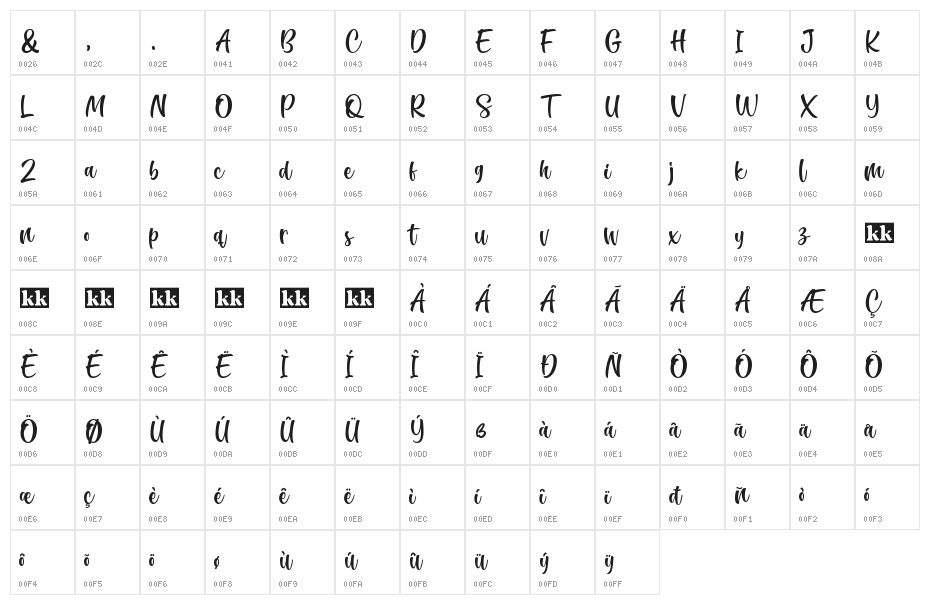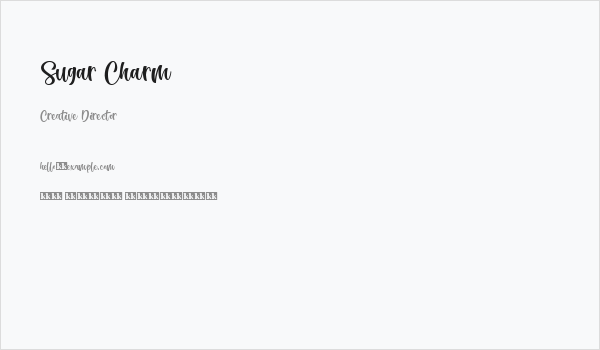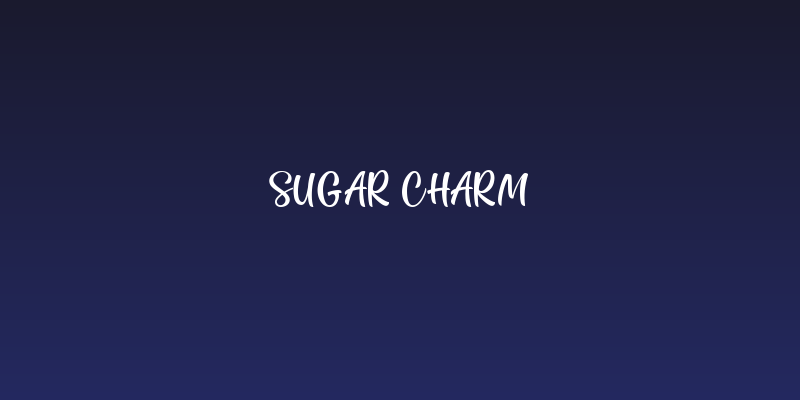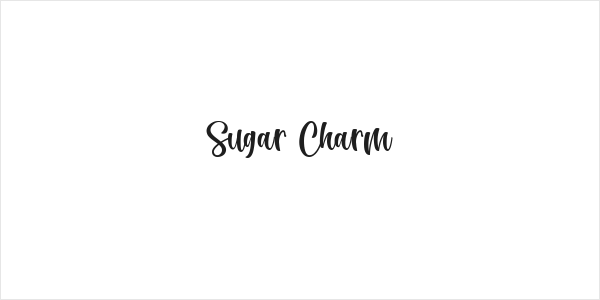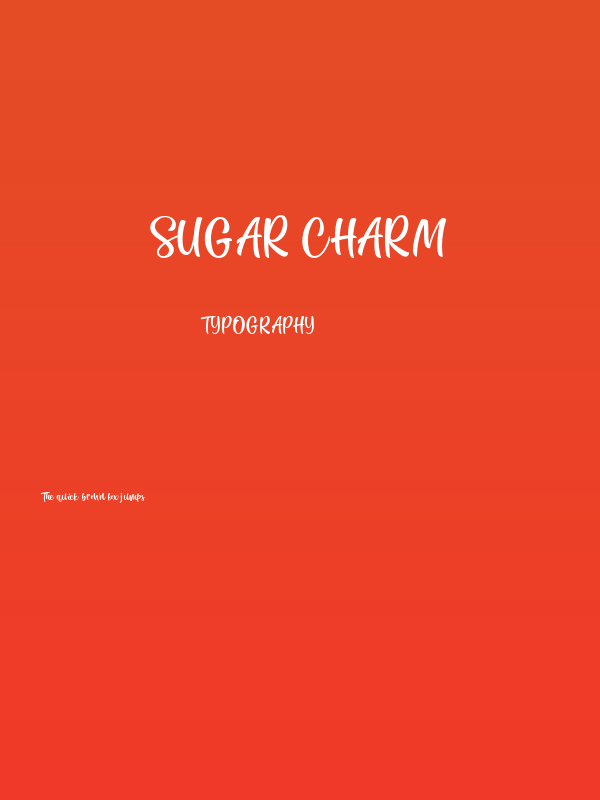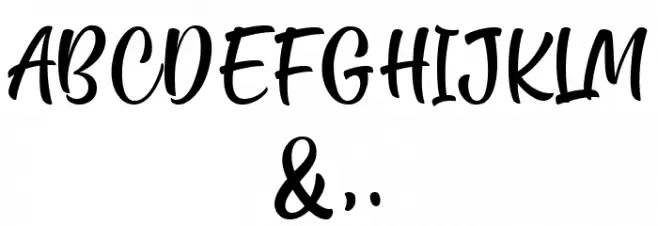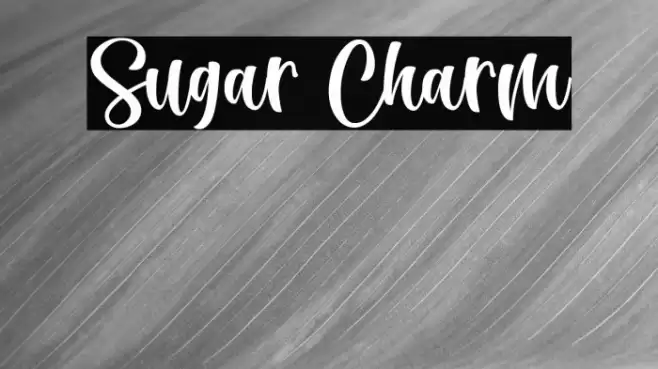
Sugar Charm Font
Sugar Charm Description
This font exudes a playful and energetic vibe with its bold, flowing script style. The characters are crafted with a smooth, brush-like appearance, giving it a handwritten feel. The uppercase letters are slightly larger and more pronounced, while the lowercase letters maintain a consistent flow, enhancing readability. The numbers and special characters are designed to match the overall aesthetic, ensuring a cohesive look across all text. The font's lively and dynamic nature makes it suitable for projects that require a personal touch or a sense of creativity.